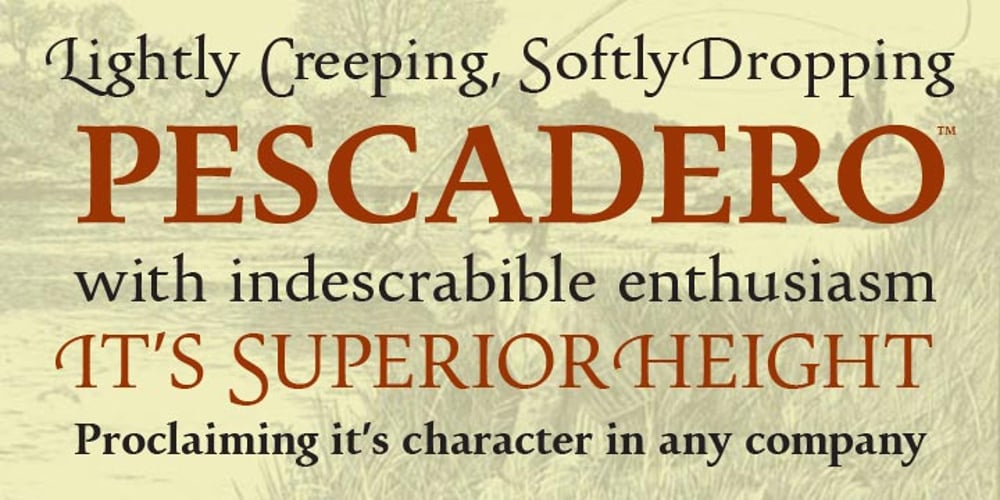
Pescadero
Pescadero font
Pescadero Font Family was designed by Steve Matteson and published by Ascender. Pescadero contains 2 styles and family package options. Pescadero Pro is named for the valley in California’s rugged central coast. Early Spanish settlers called the area Pescadero (fishing place) as they observed it was a favorite fishing spot for the local natives. Designed by Steve Matteson, Pescadero is delicate and detailed for attractive documents but robust enough for serious reports and titles. The design is based heavily on calligraphic inscriptional lettering. Pescadero Pro’s OpenType features include proportional figures, tabular figures, old style figures and initial swash caps.